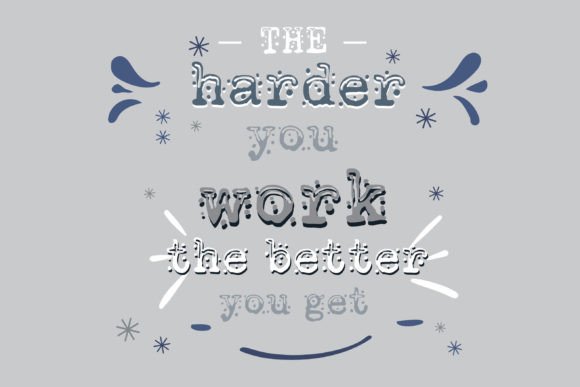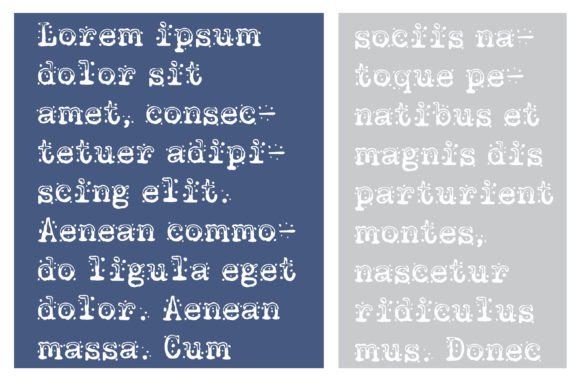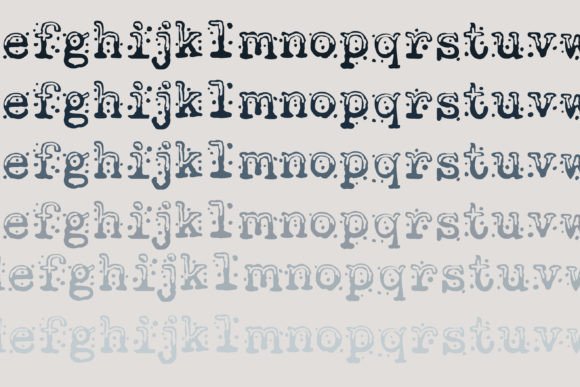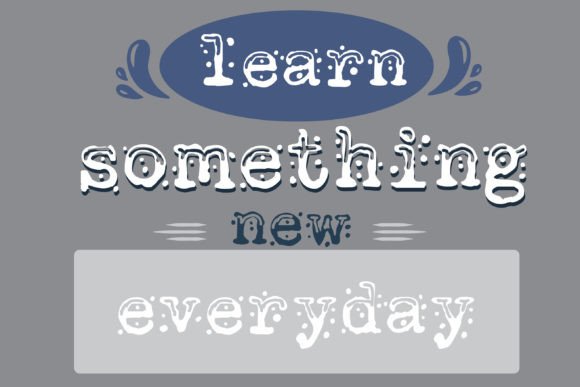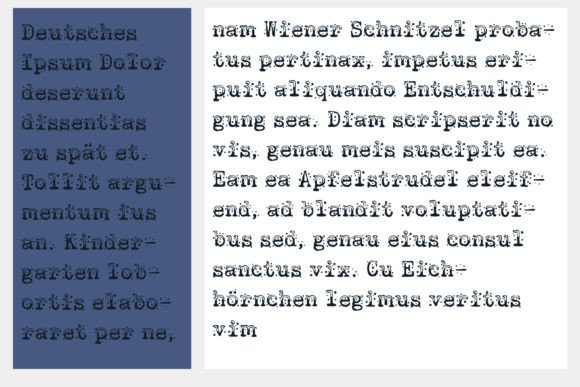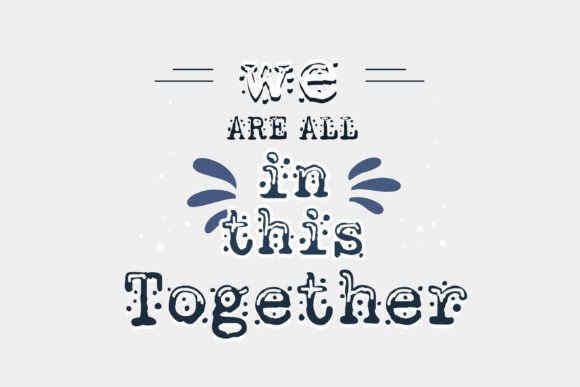
Introduction to Rustic Blizzard Font
As I sat at my desk, surrounded by blank pages and endless ideas, I knew exactly what I needed to bring my latest design project to life. A touch of nostalgia, a dash of winter wonder, and a whole lot of charm. That’s when I stumbled upon the perfect design resource – the Rustic Blizzard Font. This hand-crafted masterpiece is more than just a font, it’s an experience that transports you to a cozy cabin on a snowy night.
With its old-school, courier-like serif and delicate snowy covering, the Rustic Blizzard Font is the perfect addition to any design project. Whether you’re working on a high-quality brochure, a creative blog post, or a free download for your audience, this font is sure to bring a unique and timeless appeal to your work.
Rustic Blizzard Font
- Unique Rustic and Winter-inspired design perfect for creative projects.
- Perfect for winter-themed designs, holiday projects, or any creative project requiring a rustic and cozy feel.
Honest Review: Rustic Blizzard Font
I recently stumbled upon the Rustic Blizzard Font, and I must say it’s a fantastic addition to any design resource collection. The font is perfect for those looking to add a touch of winter charm to their creative project.
- ✨ High quality and crisp typography
- ✨ Beautifully designed for a rustic winter theme
- ✨ Suitable for both digital and print designs
- ⚠️ Limited character set, which may not be suitable for lengthy text
Overall, I’m impressed with the Rustic Blizzard Font. Its unique design and high quality make it a valuable asset for any design project. While it may have some limitations, I believe it’s well worth the free download. Whether you’re working on a creative project or simply looking to spice up your design, this font is definitely worth checking out.
The Rustic Blizzard Font is a high-quality, free download design resource perfect for creative projects. With its unique, distressed aesthetic, this font is ideal for adding a touch of rugged charm to your designs.
To get the most out of the Rustic Blizzard Font, try using it on a transparent background to add depth and dimension to your designs. You can also combine it with other design elements, such as textures and patterns, to create a unique and eye-catching look.